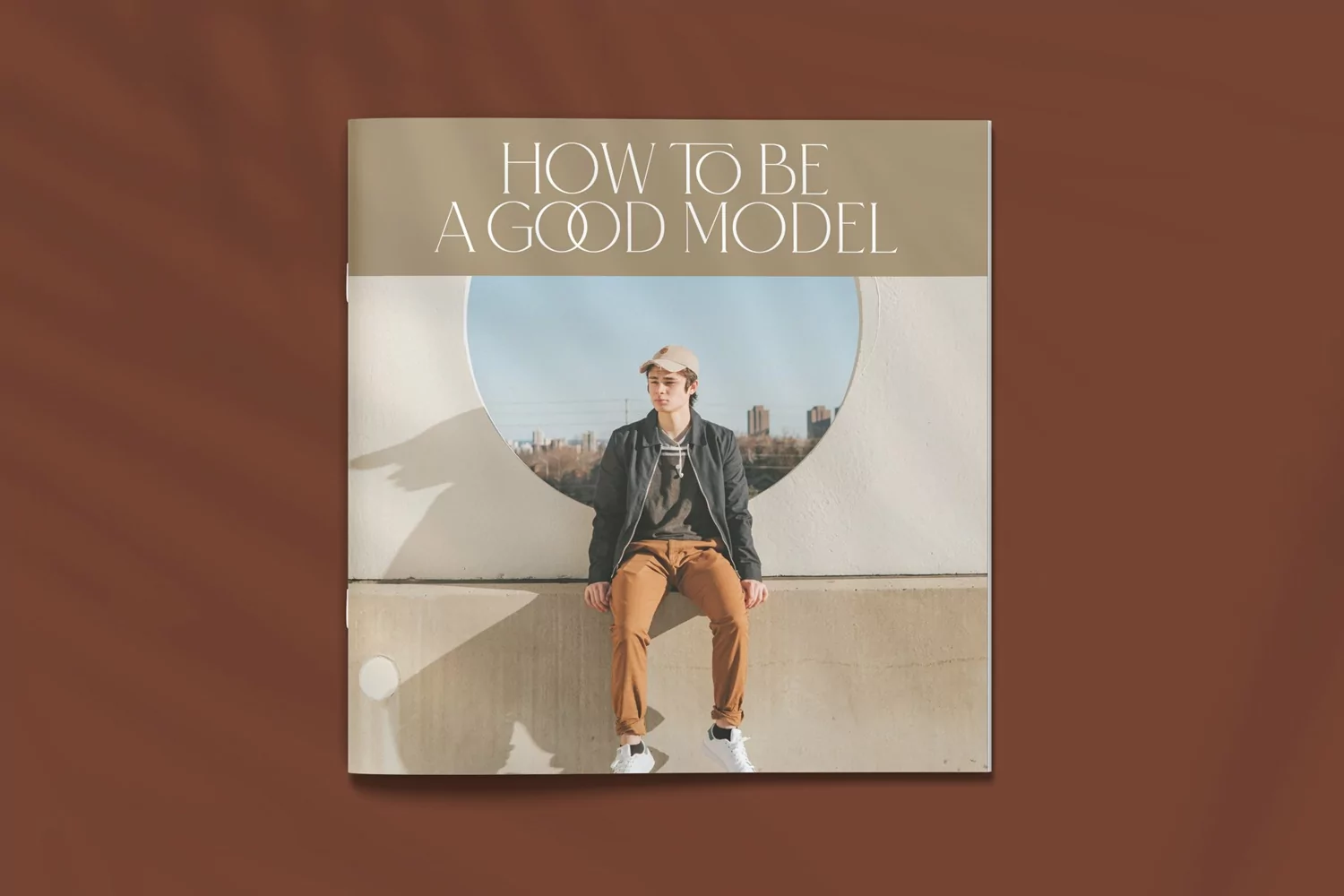
Labyrinth is a perfect blend of elegance and modernity. Great for social media posts, logos, invites and many other projects. It comes with multilingual support also.